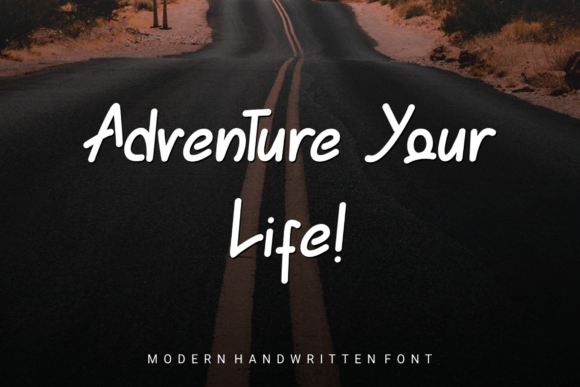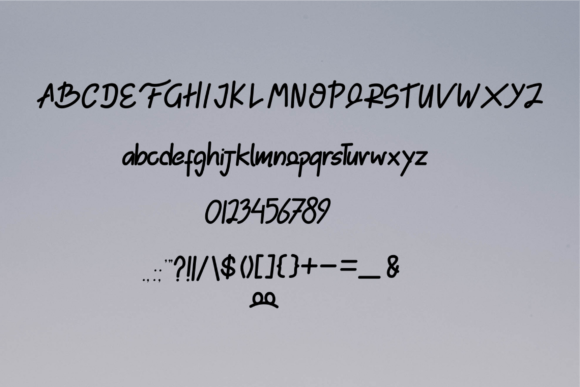
About The Grambit Font
Introducing “The Grambit,” a modern handwritten script font designed to bring a natural, stylish, and extraordinary touch to your projects. This font is perfect for a wide range of creative applications, including wedding invitations, thank you cards, quotes, greeting cards, logos, business cards, and any design that requires a customized and handwritten feel.
The charm of “The Grambit” lies in its versatile style, which looks lovely across various design contexts. Whether you’re working on elegant wedding invitations or creating personalized business cards, this font adds a touch of sophistication and customization to your text.
Incorporate “The Grambit” into your projects and experience how it enhances the overall aesthetic with its natural and stylish design. This font is crafted to be versatile, making it suitable for a myriad of creative applications where a customized and handwritten feel is desired.
In summary, “The Grambit” is more than just a font; it’s a versatile and stylish tool ready to elevate your projects with its modern handwritten script. Download “The Grambit” now and explore how it can bring a customized touch to your wedding invitations, thank you cards, quotes, logos, and various other design endeavors.